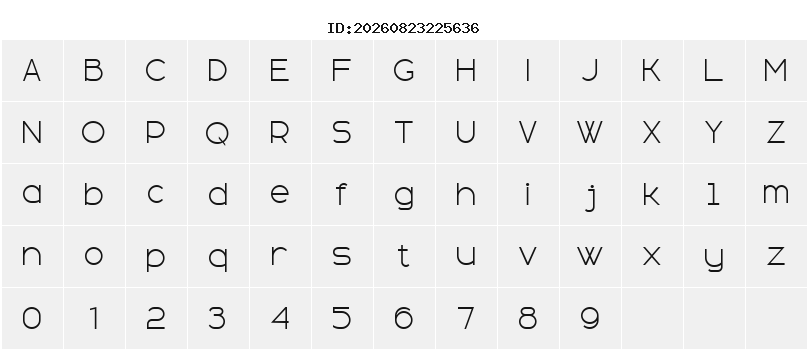
Sans Serif Plus 7 Preview
• Font Name: Sans Serif Plus 7
• Font ID: Style-7: Sans Serif Plus 7: 2015
• Full Font Name: Sans Serif Plus 7
• Designer: Sizenko Alexander
• Manufacturer: Style-7
About Sans Serif Plus 7.ttf
Sans Serif Plus 7.ttf is a modern, elegant sans-serif font designed for ultimate readability and visual harmony. Perfect for branding, headlines, web design, and print materials.